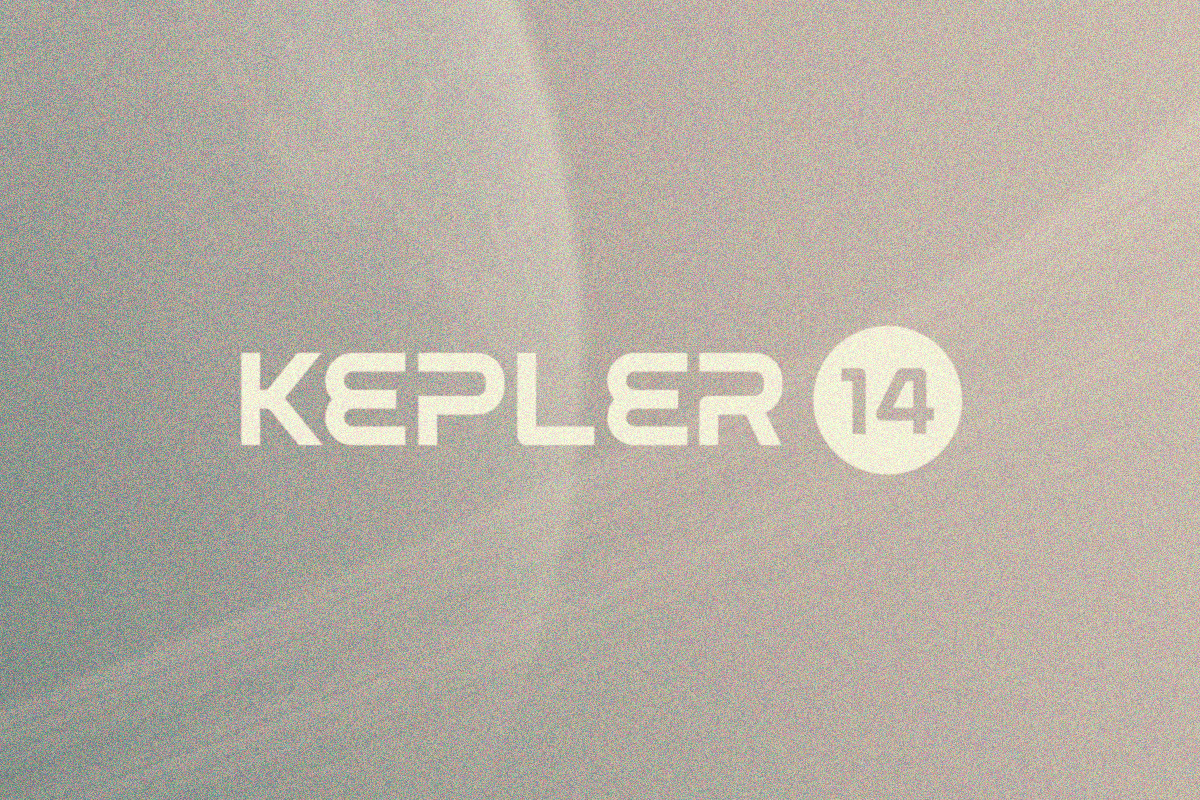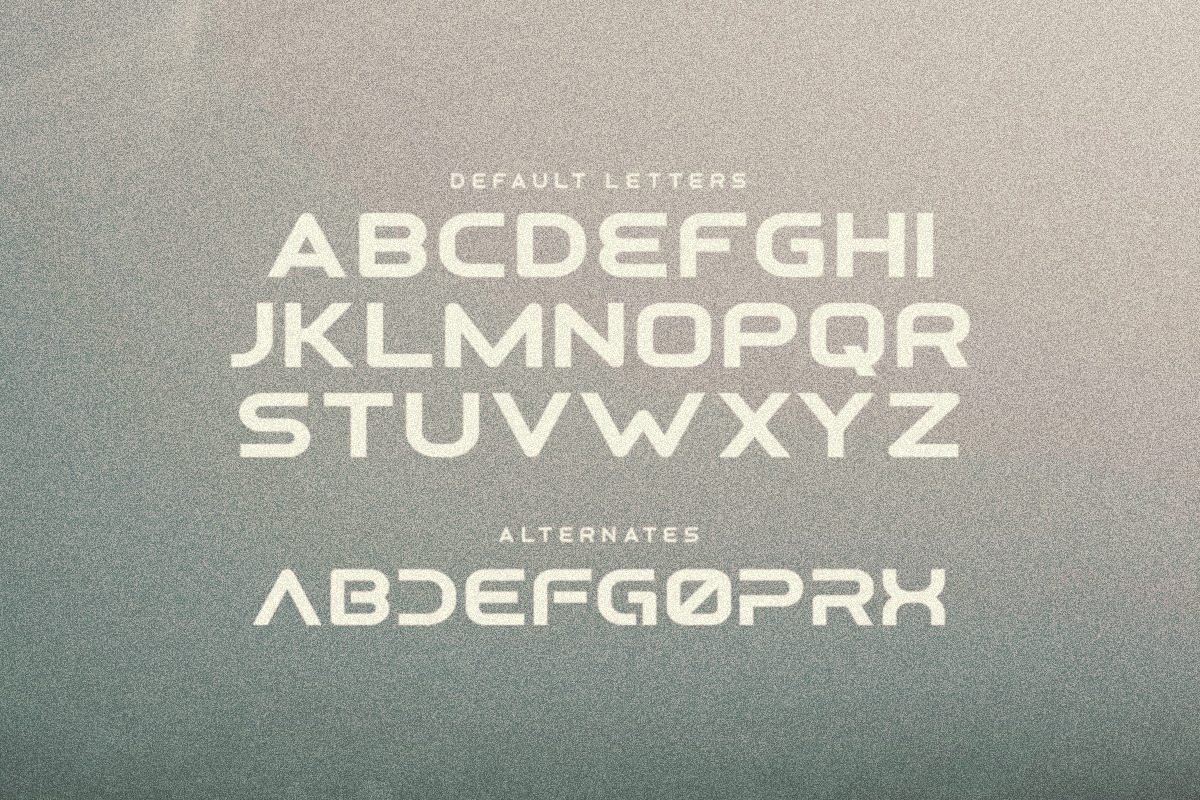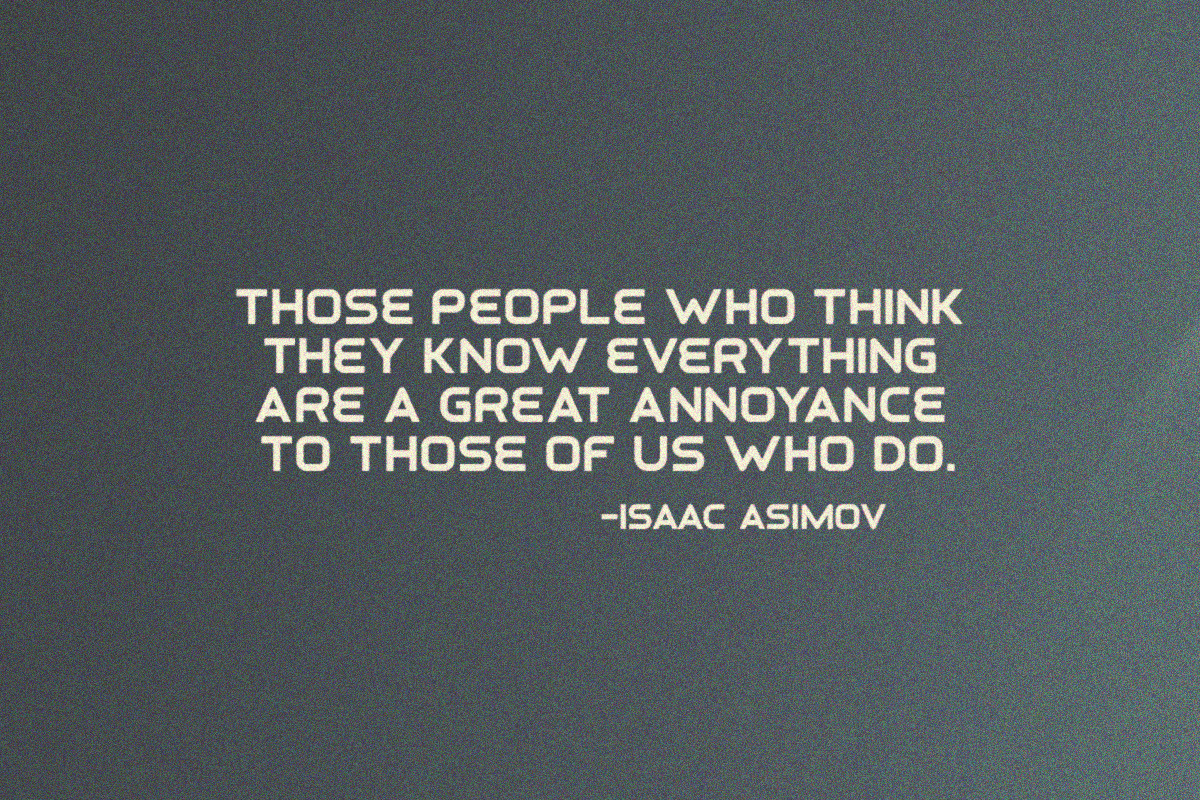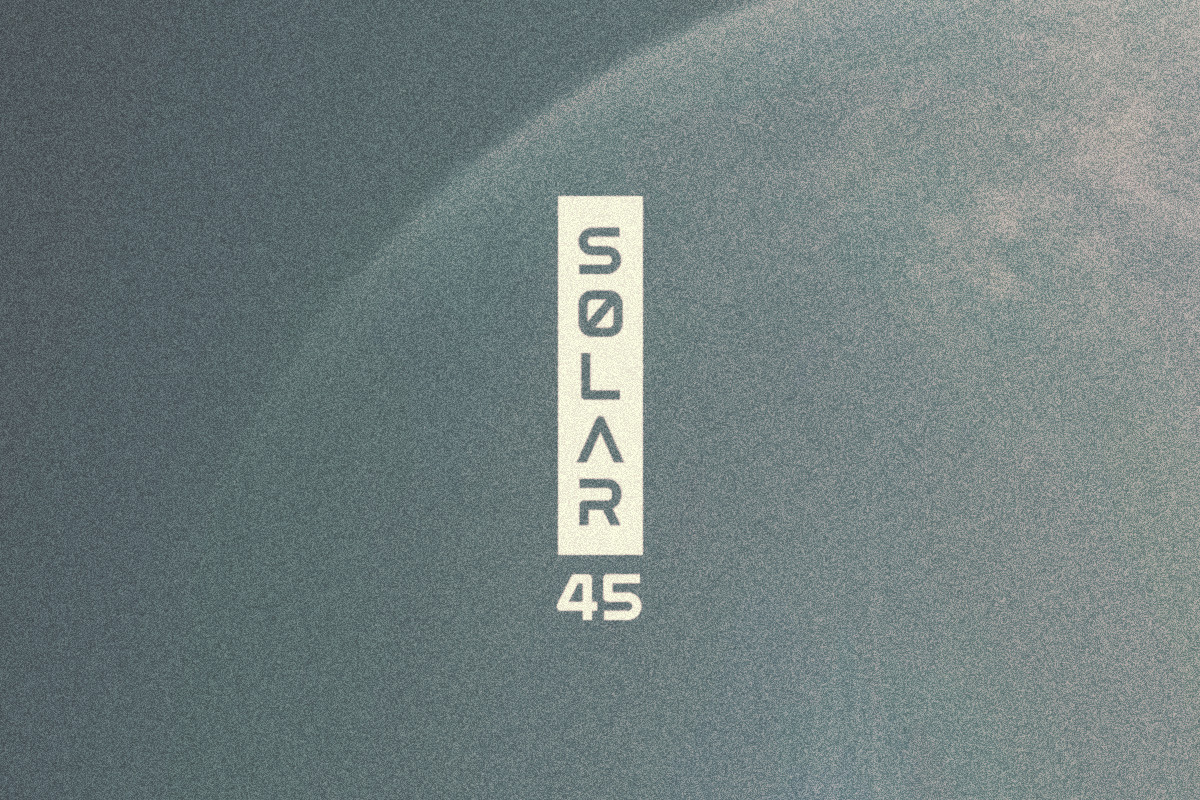
Osiris - Futuristic Font
Osiris is a retrofuturistic font with alternate letters. It includes uppercase multilingual letters, numbers and punctuation. The font features both sharp edges and rounded corners and was inspired a bit by the NASA font.
- It includes uppercase multilingual letters, numbers and punctuation.
- Osiris is a retrofuturistic font with alternate letters.